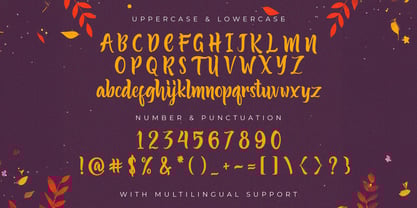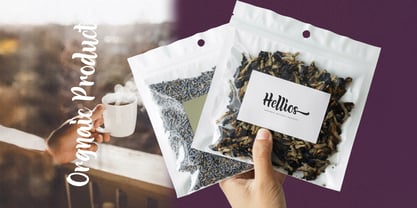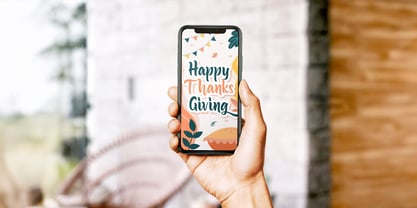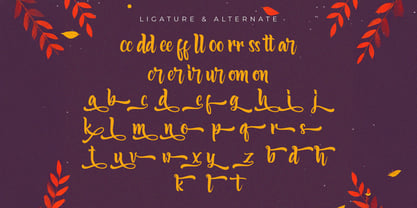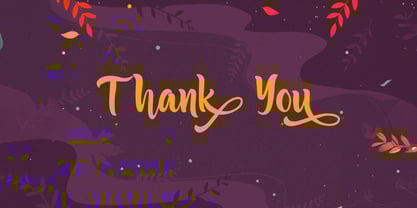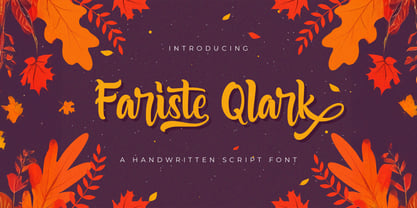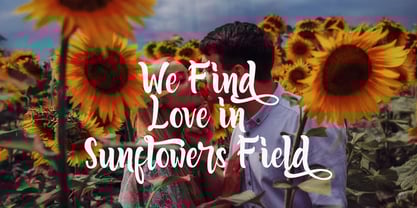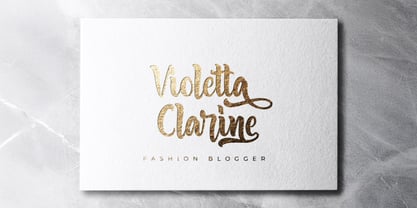
Fariste Qlark
by Stringlabs Creative Studio
The Fariste Qlark Font Family was designed by Virgiawan Listanto and published by Stringlabs Creative Studio. Fariste Qlark contains 1 styles.
Fariste Qlark is a distinctive and modern handwritten font that captures the essence of creativity and elegance. With its playful yet refined strokes, this font offers a perfect blend of personality and readability, making it ideal for a variety of design projects.
Fariste Qlark